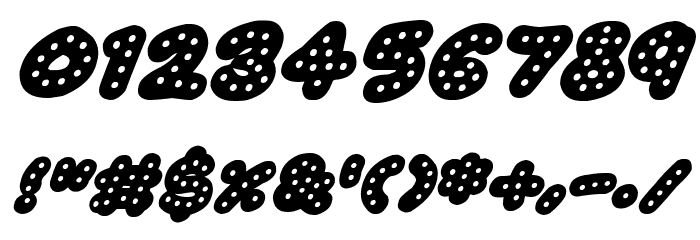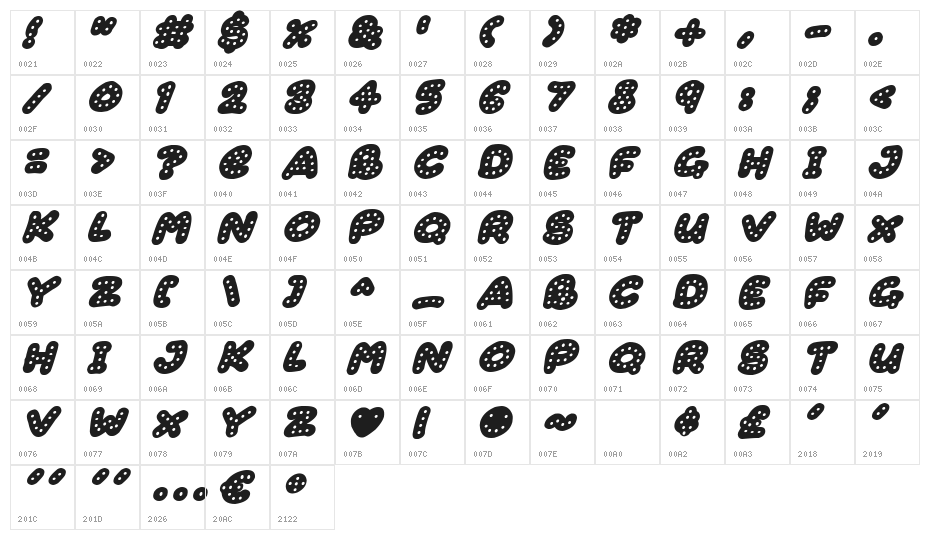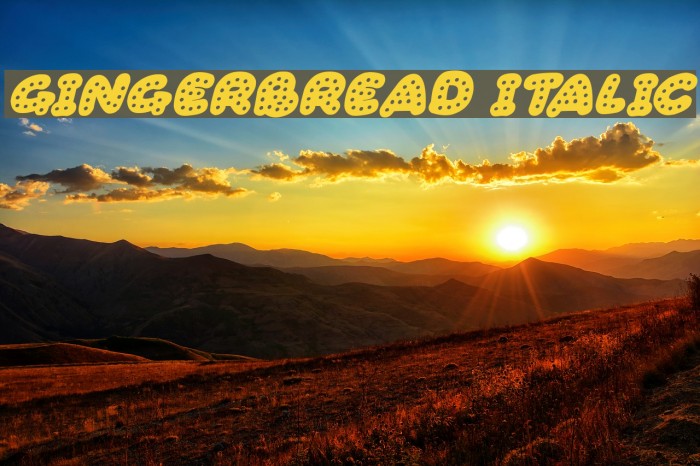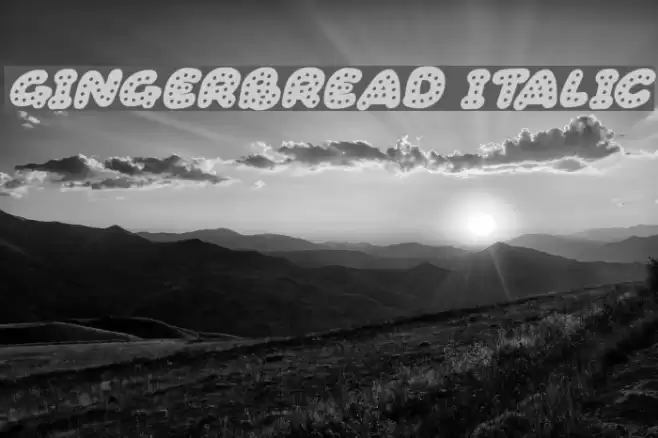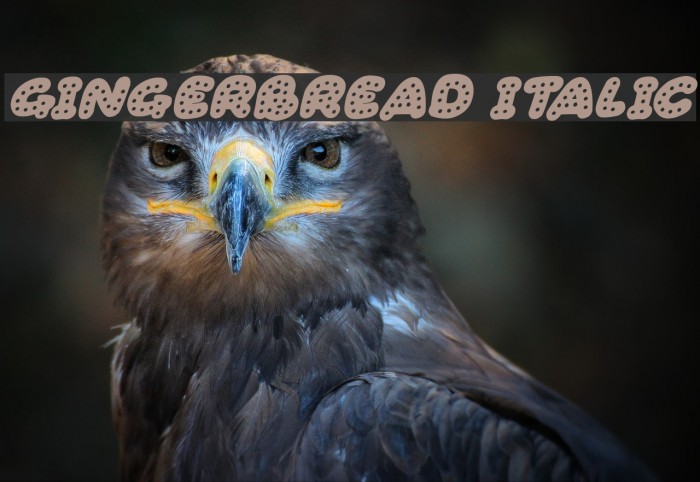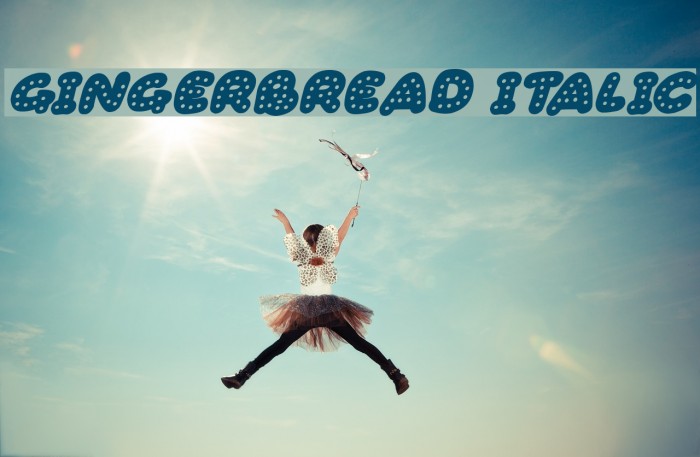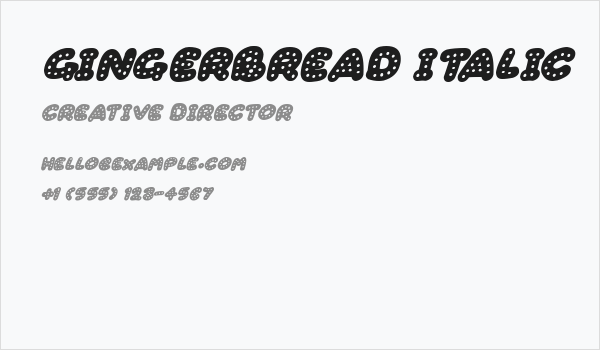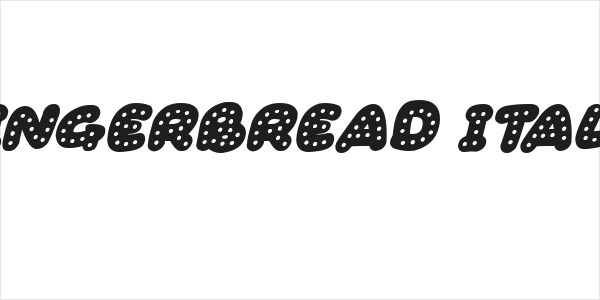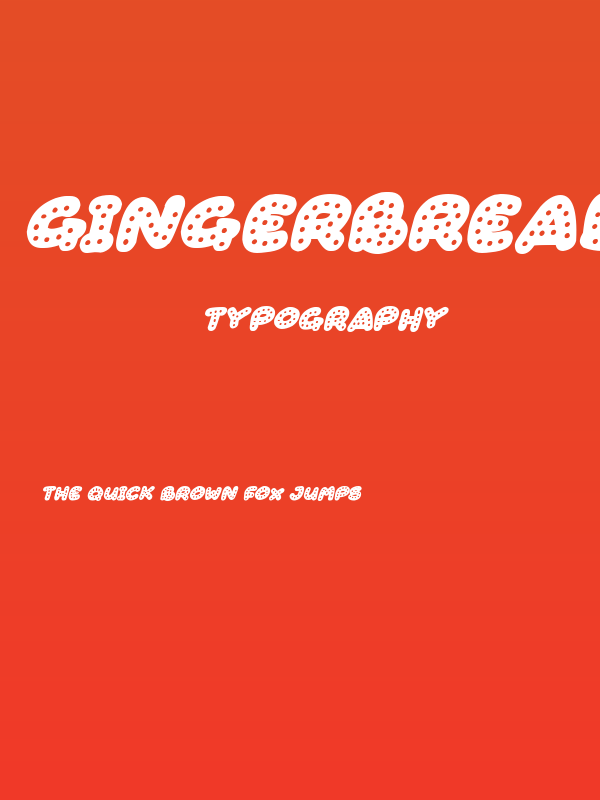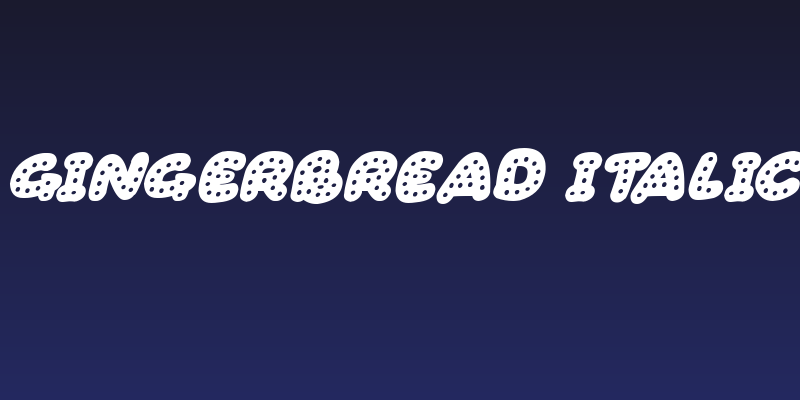
Gingerbread Italic Font
Gingerbread Italic Description
This playful and whimsical font features bold, rounded characters with a unique dotted pattern reminiscent of icing on gingerbread cookies. The letters have a consistent thickness, creating a cohesive look that is both fun and eye-catching. The font's style is informal and friendly, making it ideal for festive or playful designs. The characters are evenly spaced, ensuring readability while maintaining a decorative appearance. The dotted embellishments add a touch of charm and creativity, making this font suitable for projects that require a lighthearted and joyful aesthetic.
| Proposed Projects | Ideal for holiday cards, children's book covers, party invitations, and playful branding. |